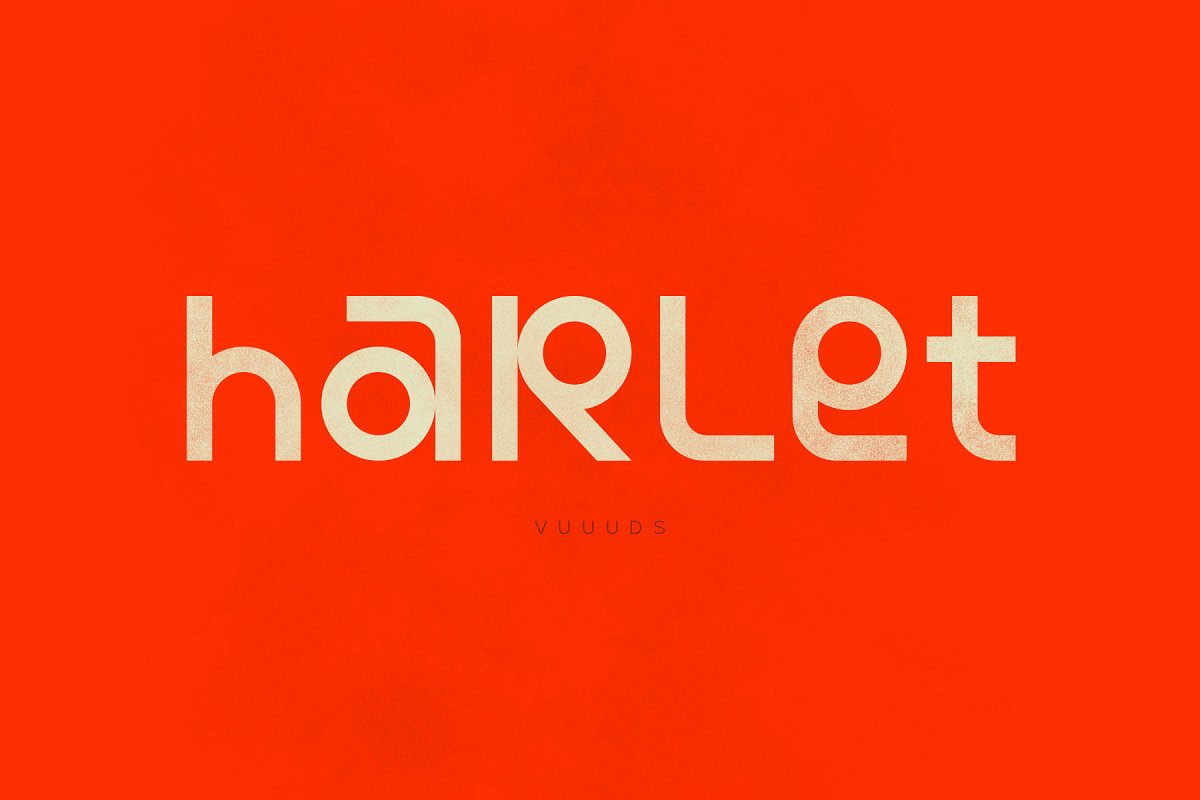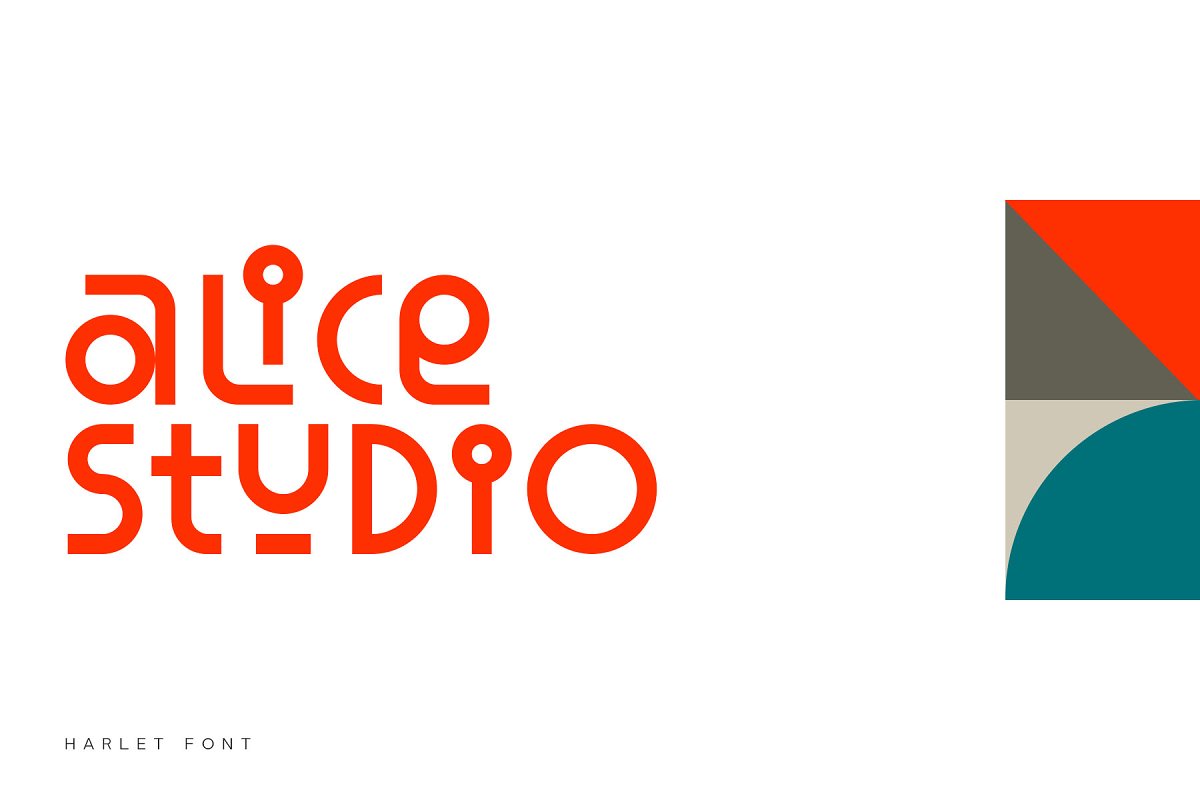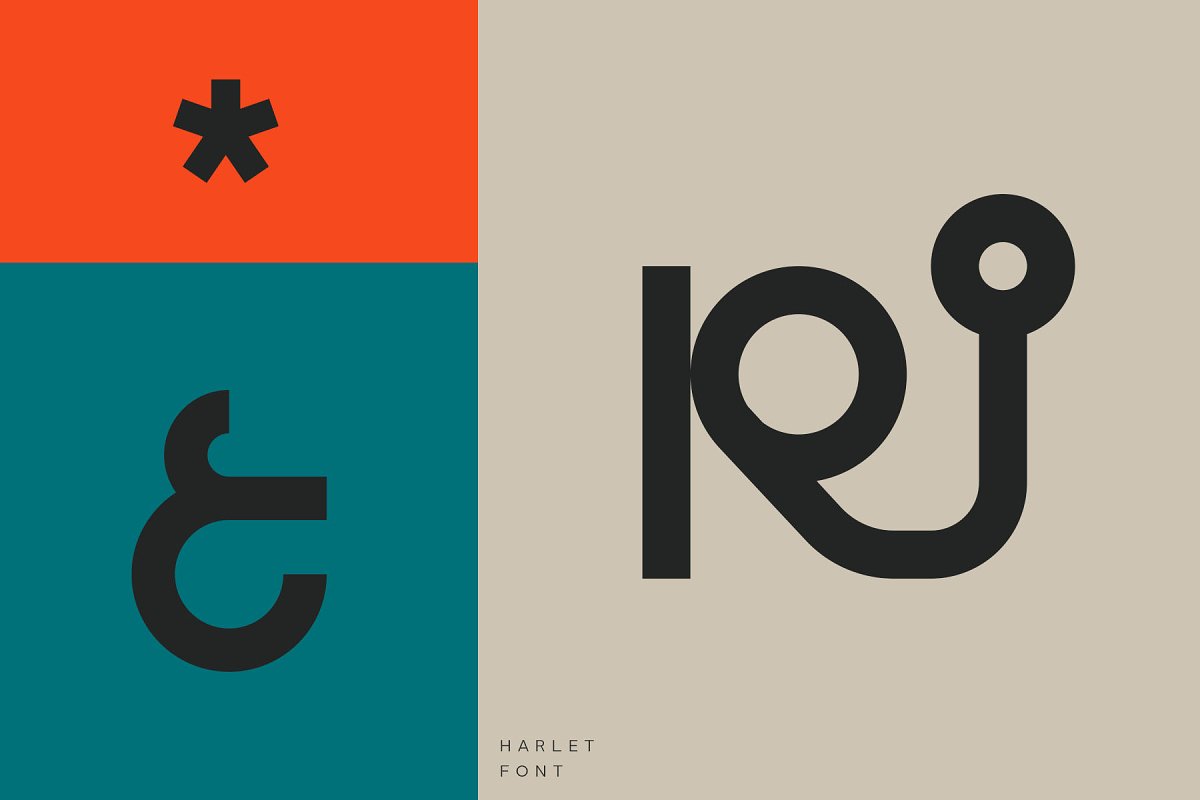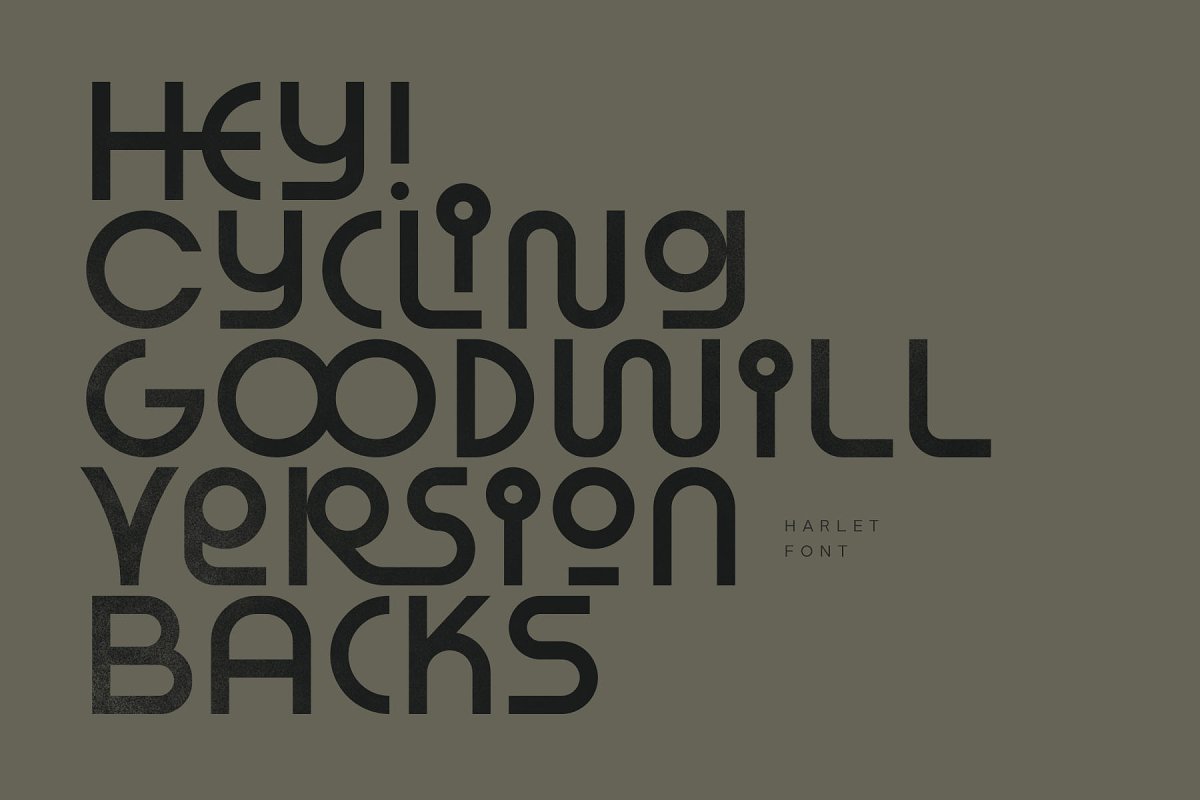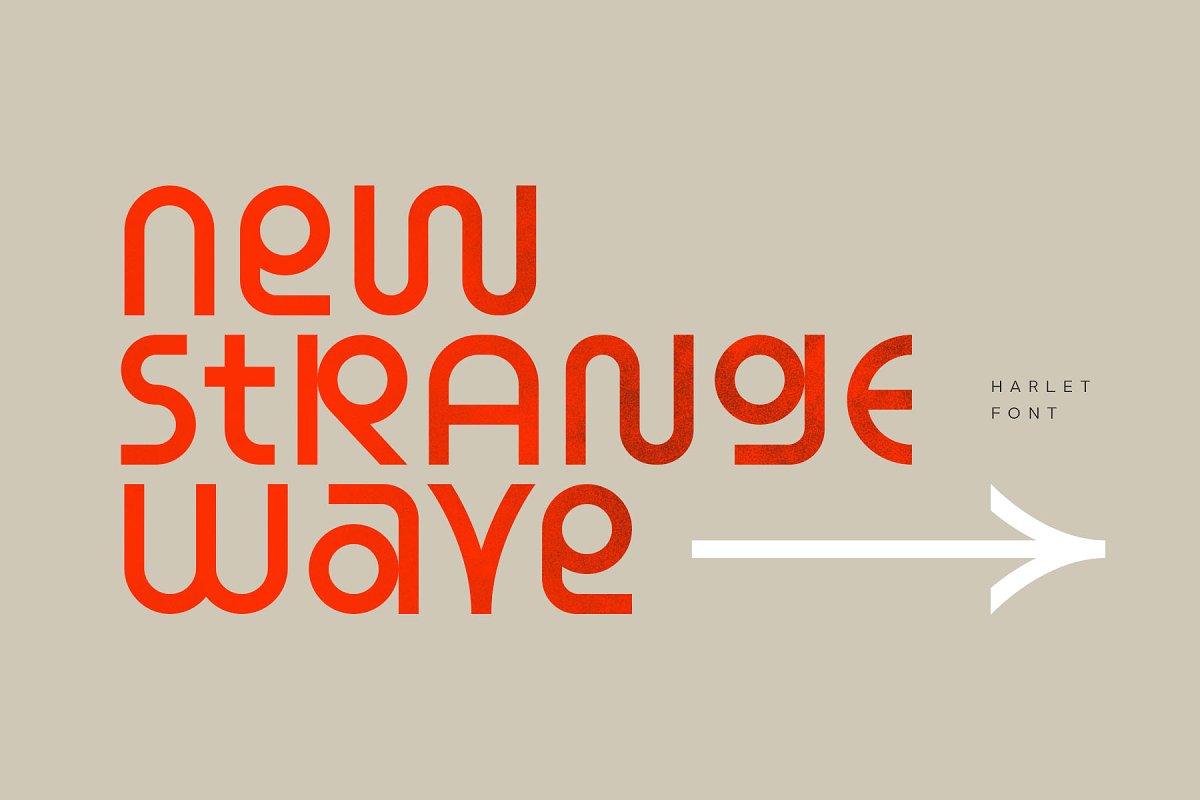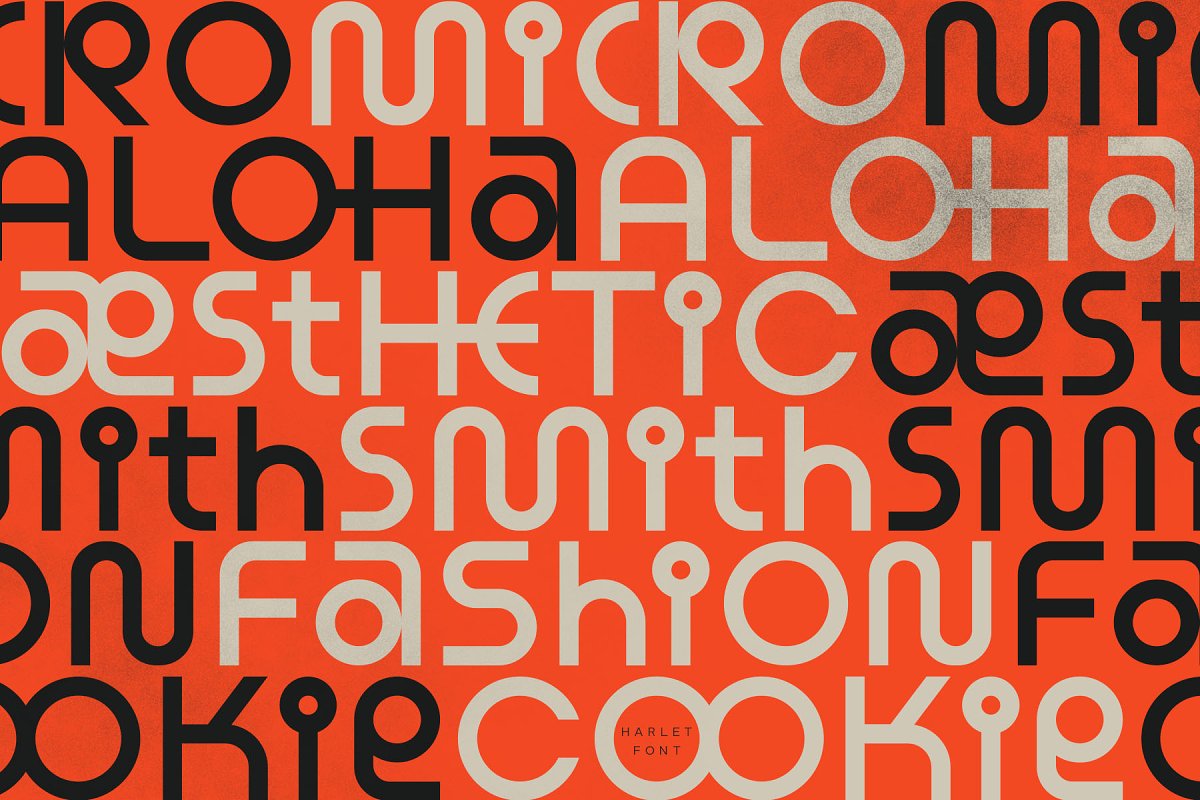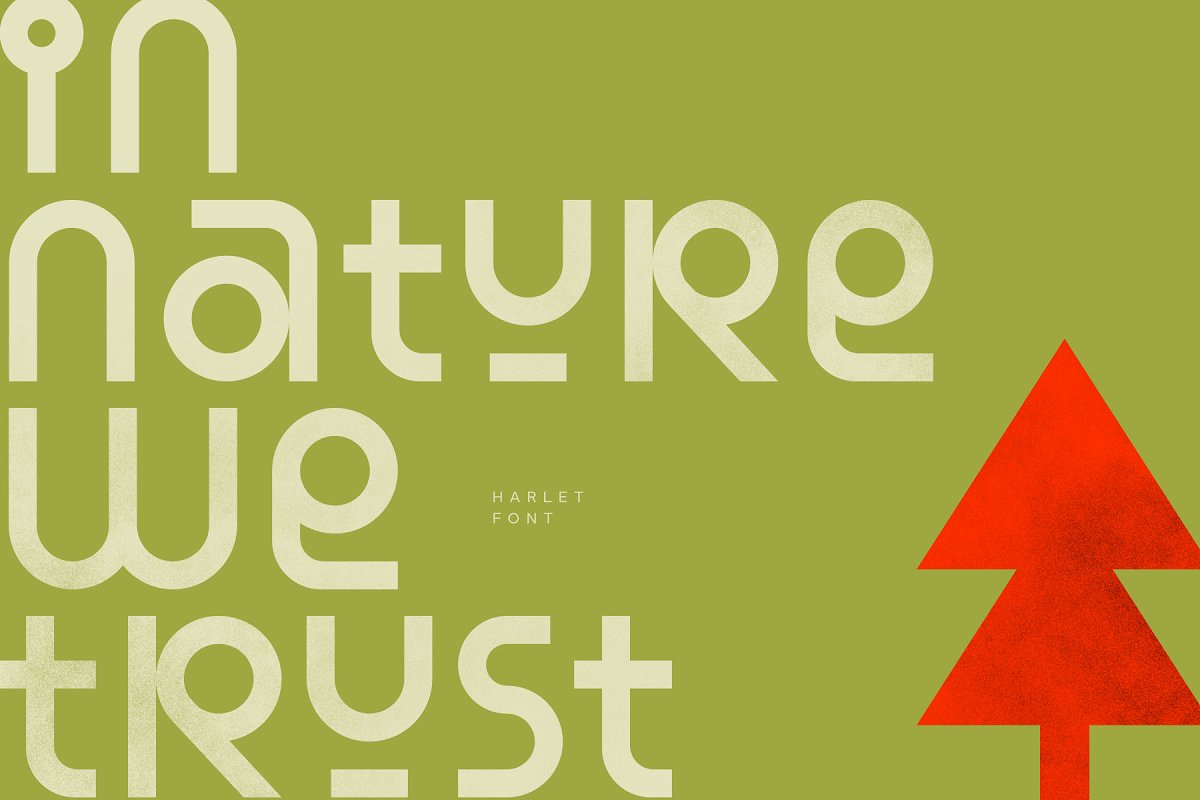
About the Harlet Font
Introducing Harlet Font! Fistro is modern fashion font, every single letters have been carefully crafted to make your text looks unique.